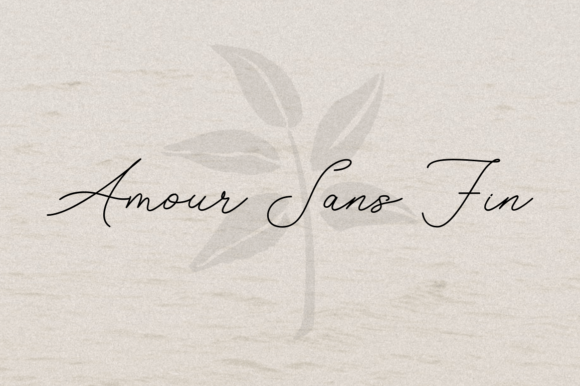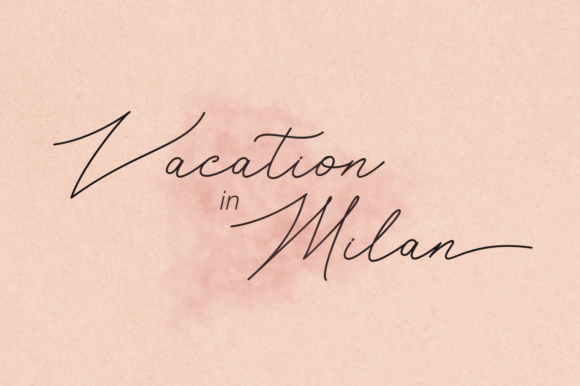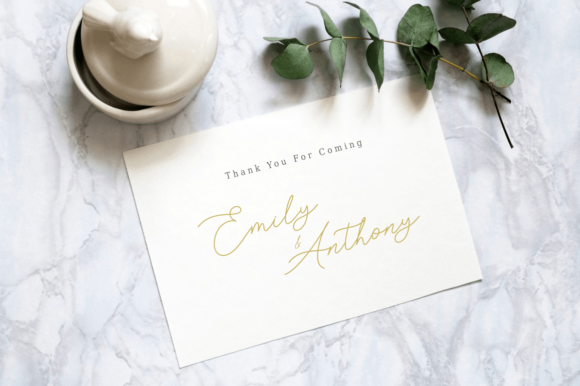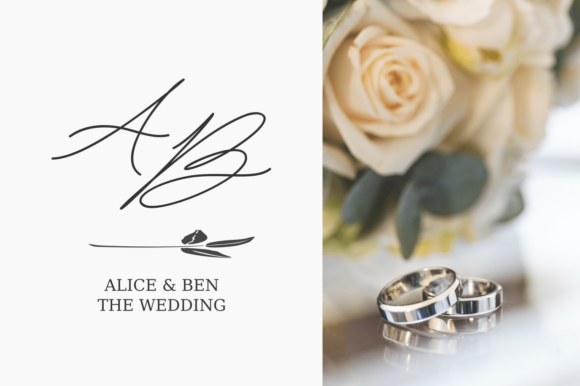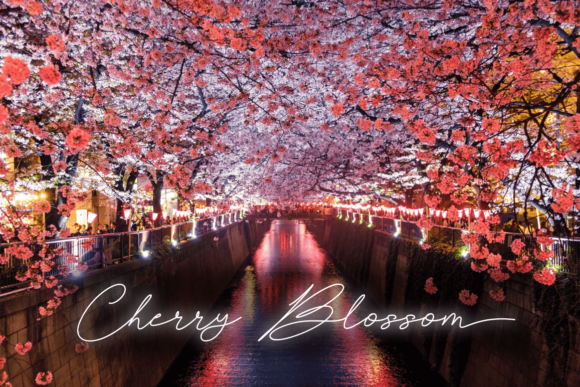
Introduction to Bellair Font
Bellair is a romantic and delicate script font.
It is PUA encoded which means you can access all of the glyphs and swashes with ease Fall for its classy style and use it to create gorgeous designs.
Key Features of Bellair Font